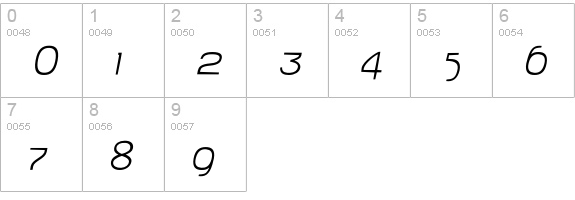
BabyMineThinOblique Font Details
Introducing BabyMineThinOblique font, a captivating and delicate typeface that exudes elegance and charm. This font is perfect for adding a touch of sophistication to any project, whether it be a wedding invitation, a brand logo, or a heartfelt quote. BabyMineThinOblique boasts slender and graceful letterforms, with subtle slanting that adds a hint of playfulness to its overall design. Its thin strokes effortlessly flow together, creating a harmonious balance that is visually pleasing to the eye. This font's versatility knows no bounds, allowing it to adapt to various design styles and themes. Its timeless appeal and contemporary twist make it suitable for both classic and modern projects alike. But the best part? BabyMineThinOblique is available for free! Yes, you read that right - this stunning font can be freely downloaded at FontsMarket.com. Now you can elevate your designs without breaking the bank. So why wait? Unleash your creativity and give your projects a touch of elegance with BabyMineThinOblique font. Download it for free now and discover the endless possibilities it can bring to your design endeavors.